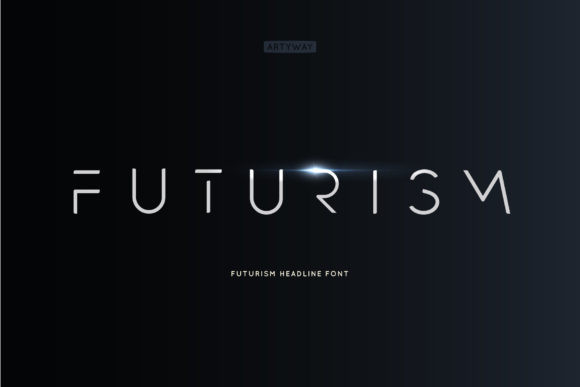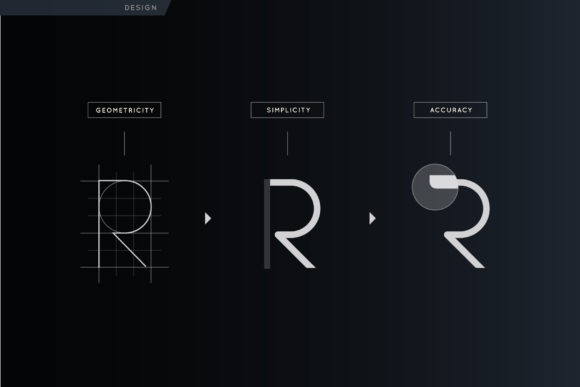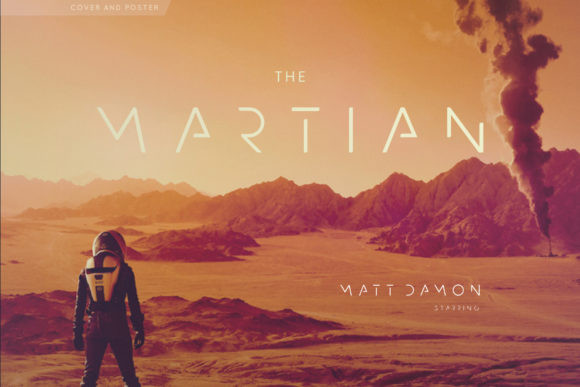
Futurism Font
Futurism is a stylish and minimalist display font. Masterfully designed to become a true favorite, this font has the potential to bring each of your creative ideas to the highest level!